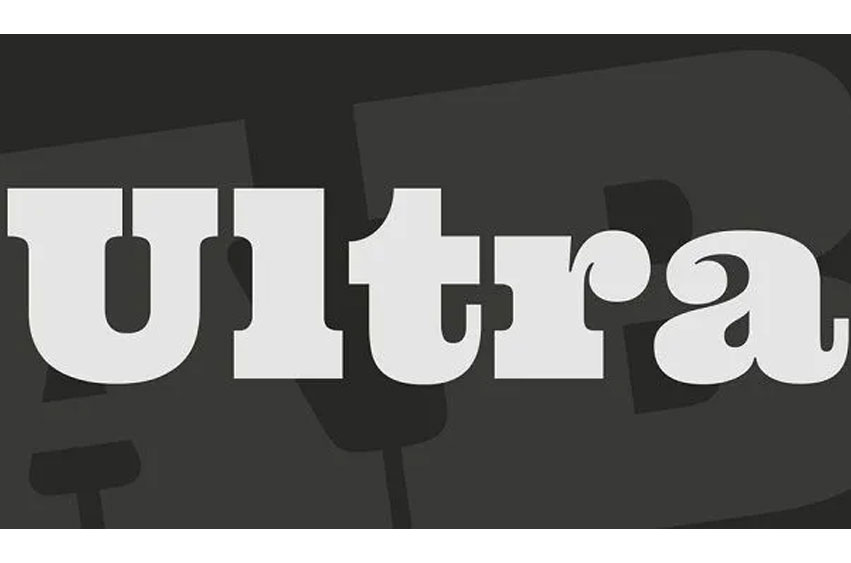
Ultra Font
Ultra Font is an ultra bold slab serif font that references wood type such as Clarendon and Egyptian.
Large and powerful lettering for titling purposes, a traditional, serious but friendly, and easily readable typeface. Ideal for power headlines and titling in an attempt to create an impact.